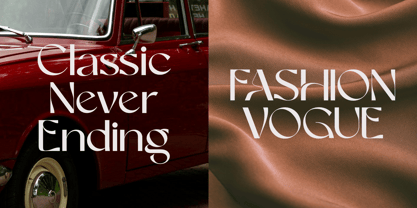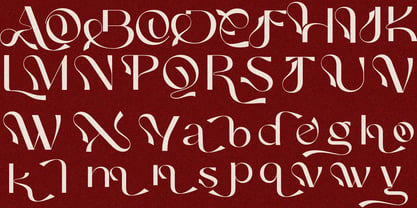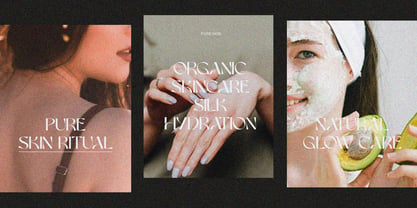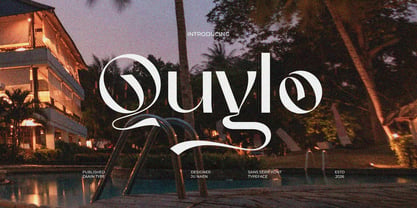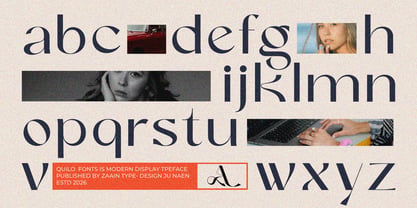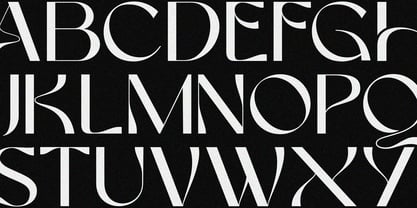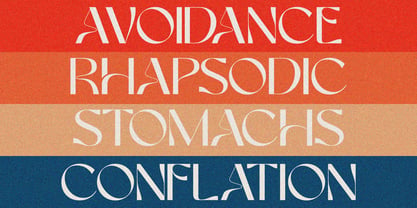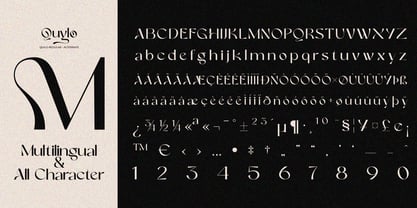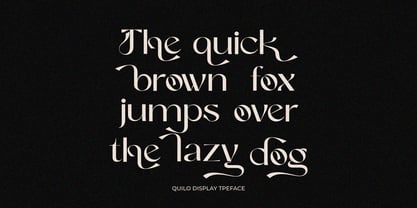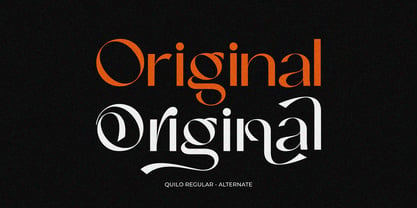
Quylo
by Zaain Type
The Quylo Font Family was designed by Ju Naen and published by Zaain Type. Quylo contains 2 styles and family package options. More about this family
Quylo is a modern sans serif font that blends simplicity with a touch of unique character. Designed with clean lines and balanced proportions, Quylo delivers a fresh, minimalist look and remains highly readable at various sizes. Each letter features subtle details that create a professional yet stylish impression, making it ideal for branding, editorial work, digital design, and modern product displays. With its elegant contemporary feel, Quylo helps build a strong visual identity without appearing excessive. This font is perfectly suited for projects that prioritize clarity, modern aesthetics, and a premium look, making it an excellent choice for designers who want to create clean yet distinctive visuals
Designers: Ju Naen
Current Foundry: Zaain Type